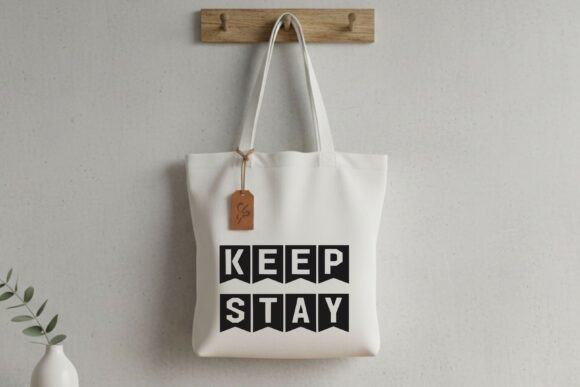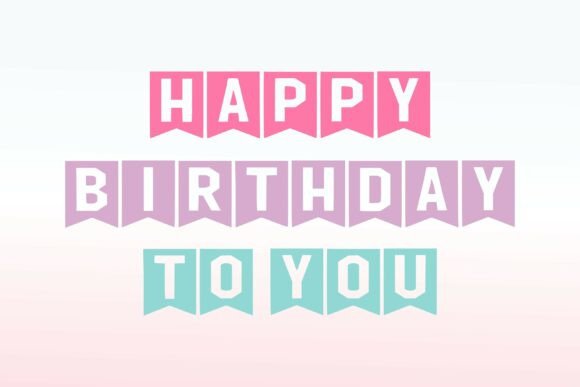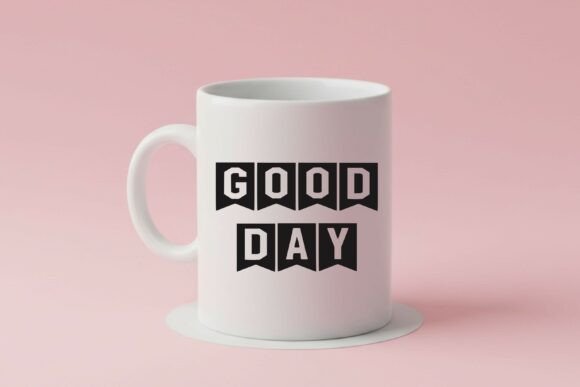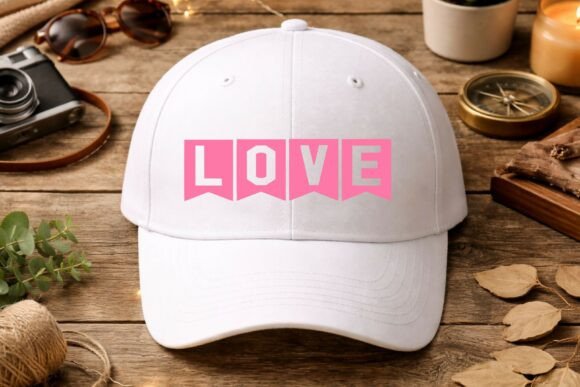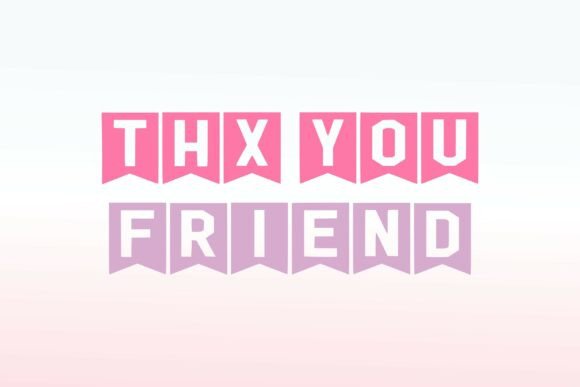
Introduction to Bunting Flag Font
Bunting Flag is a cheerful decorative display font inspired by festive banner flags.
Each letter is designed inside a playful flag shape, making it perfect for party-themed designs, celebrations, kids projects, and eye-catching headlines With its bold and fun appearance, this font instantly adds a joyful and celebratory vibe to any design.
Key Features of Bunting Flag Font